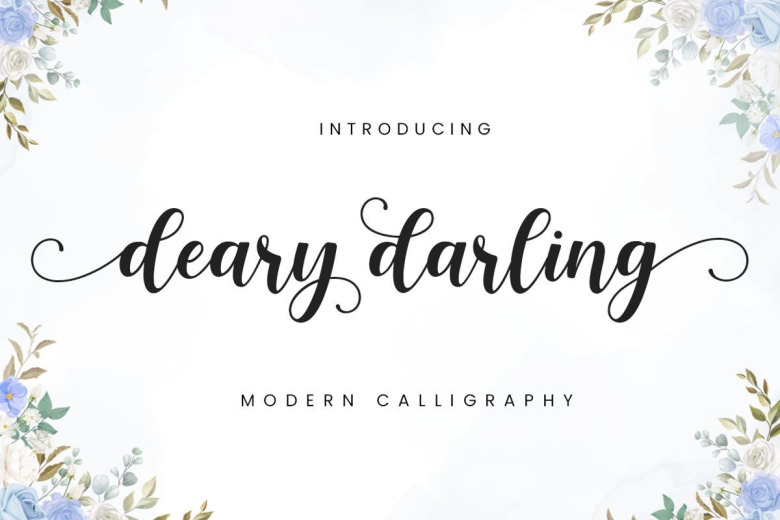
Deary Darling Font
Deary Darling Calligraphy Script Font a modern calligraphy typeface. Very cool fonts that have a modern calligraphy style with abundant alternative features that make you free to create for your project. Made from font designer named Manjalistudio. Deary Darling feels equally charming and elegant.
It looks stunning on wedding invitations, thank you cards, quotes, greeting cards, logos, business cards and every other design which needs a handwritten touch. This font is PUA encoded which means you can access all of the glyphs and swashes with ease!